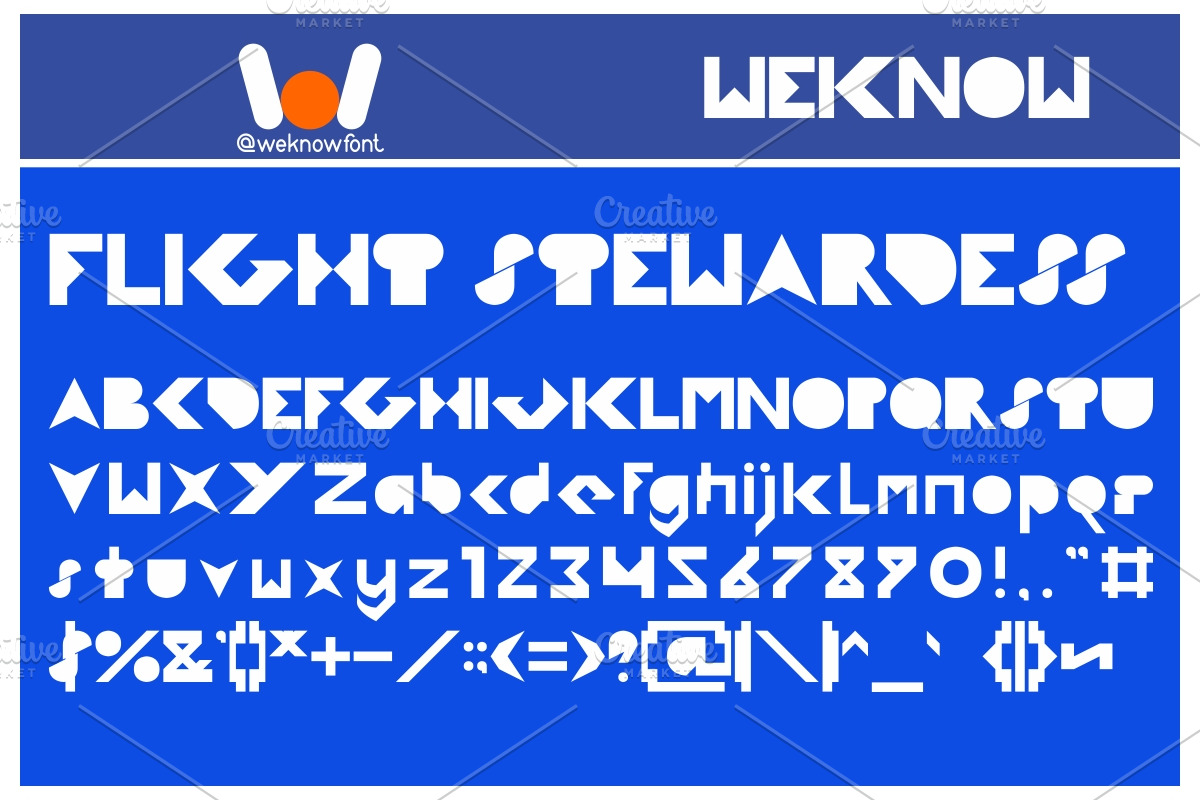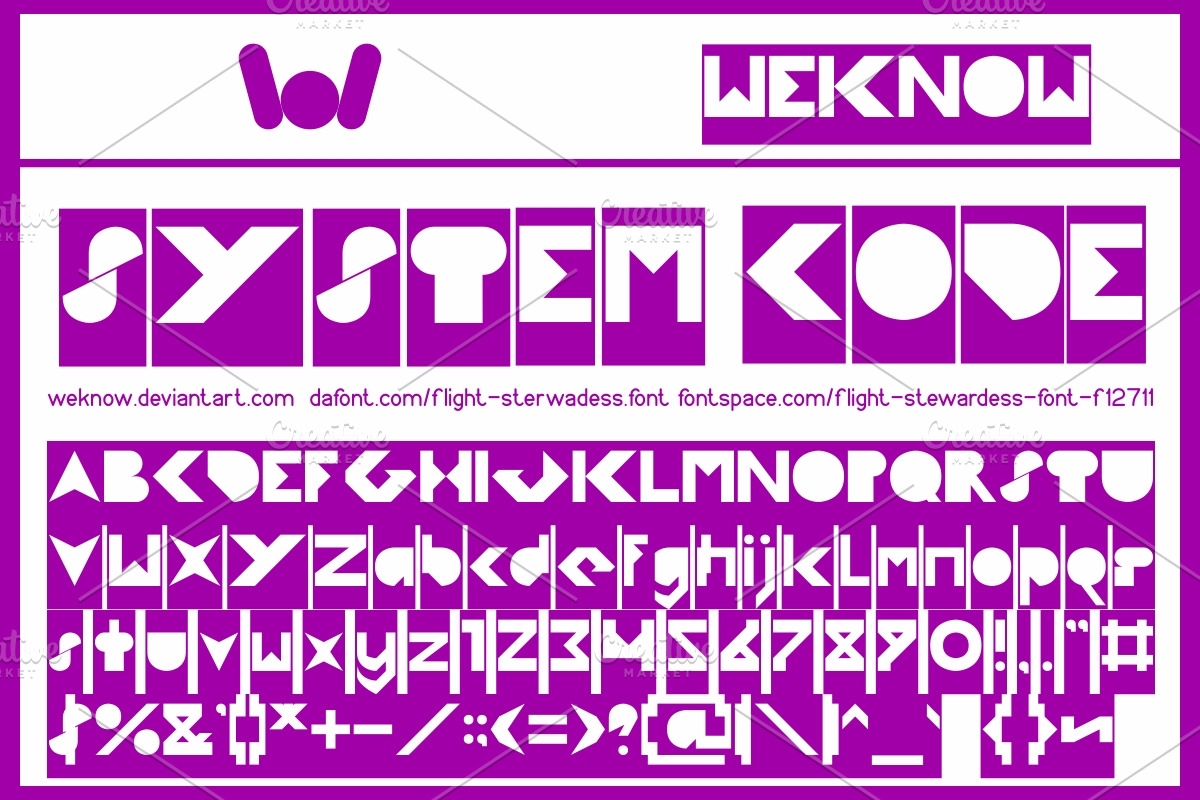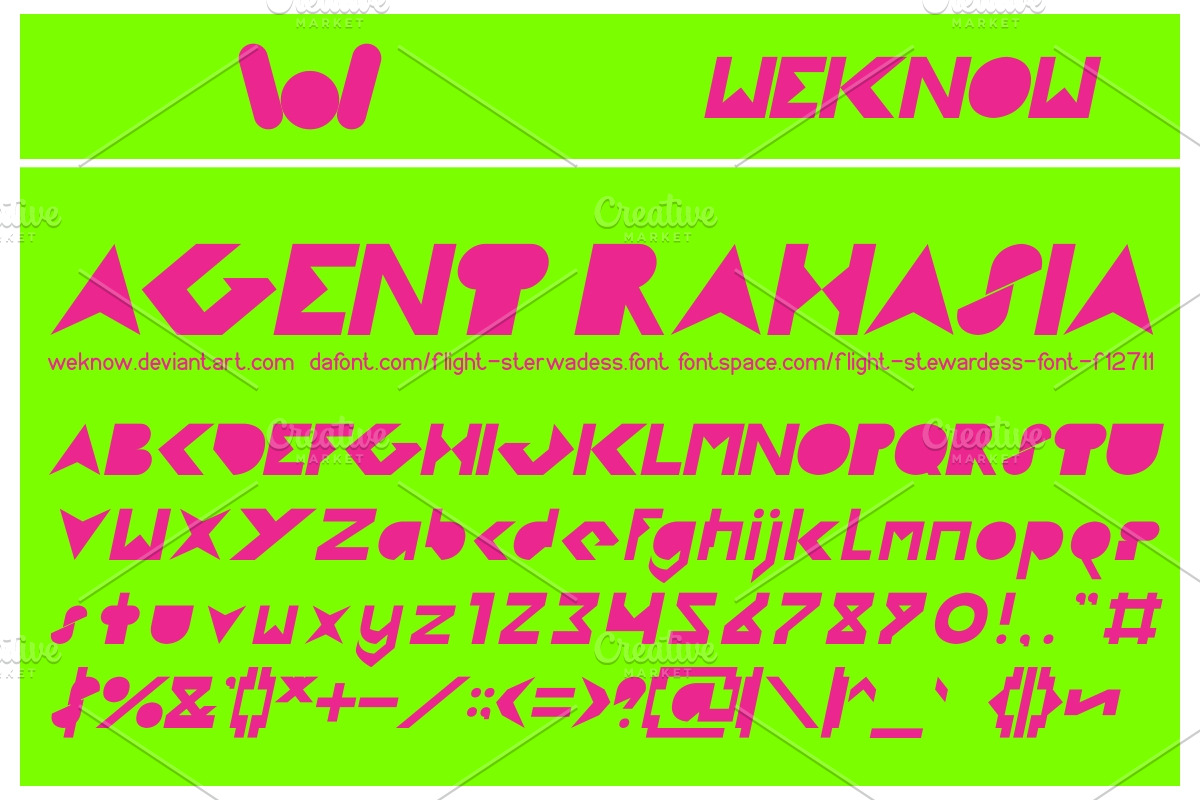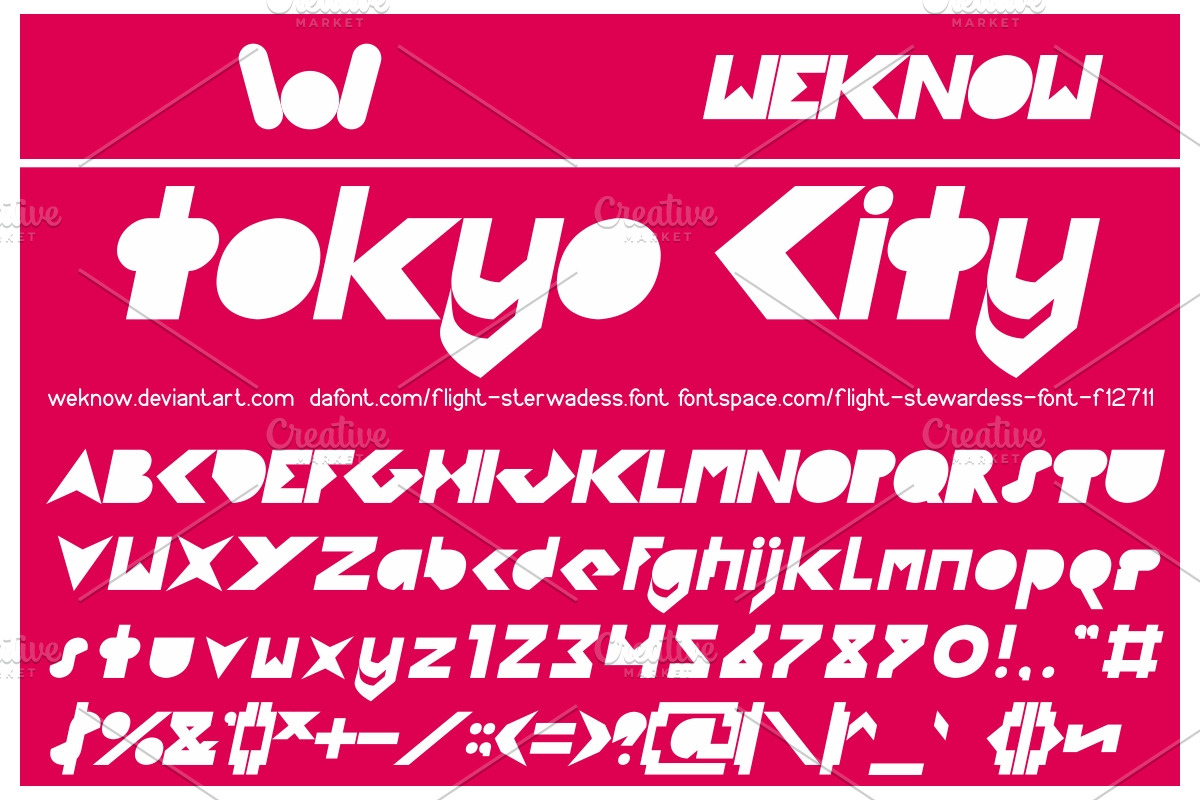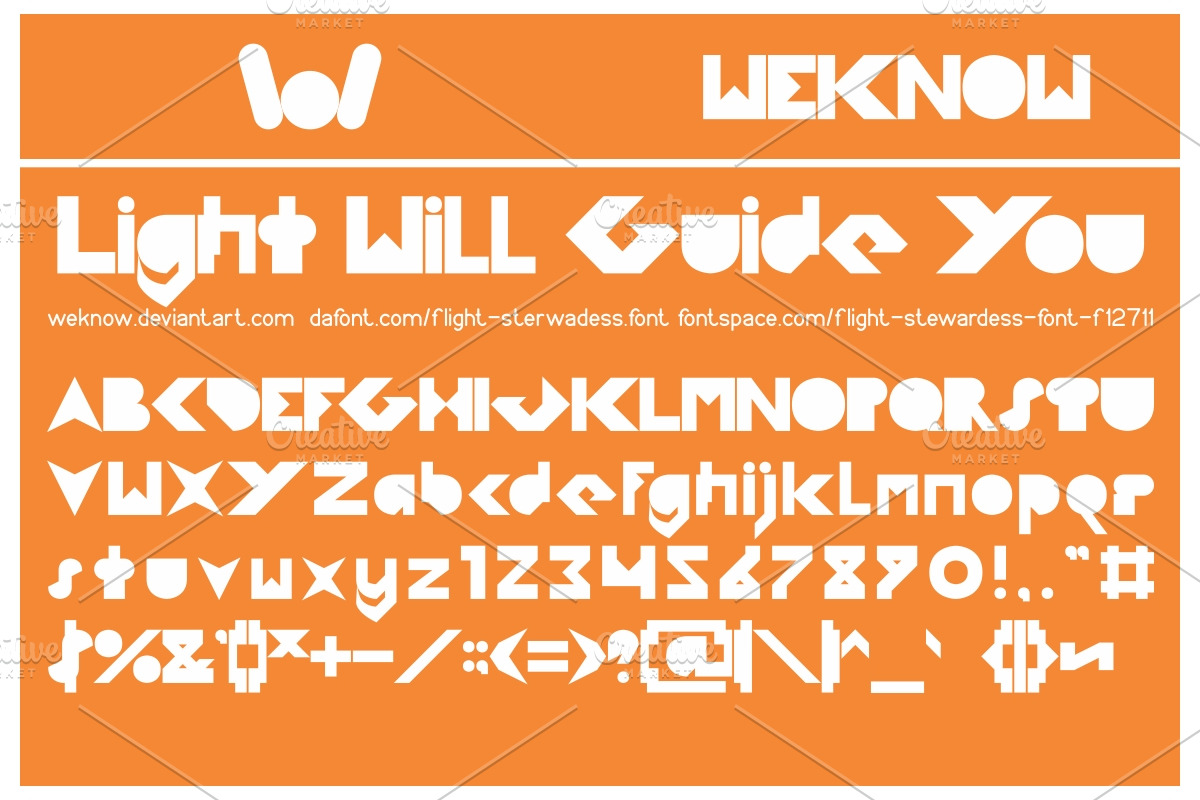
flight sterwardess font
Why flight sterwardess font is worth a look
flight sterwardess font by weknow fits naturally into Branding, posters, packaging, typography.